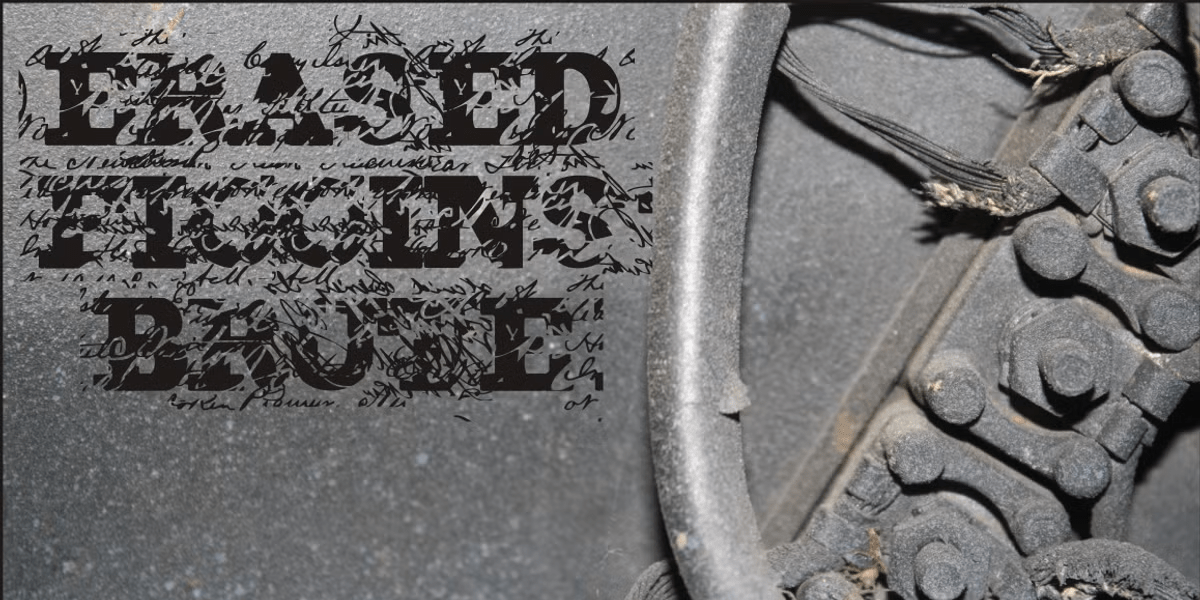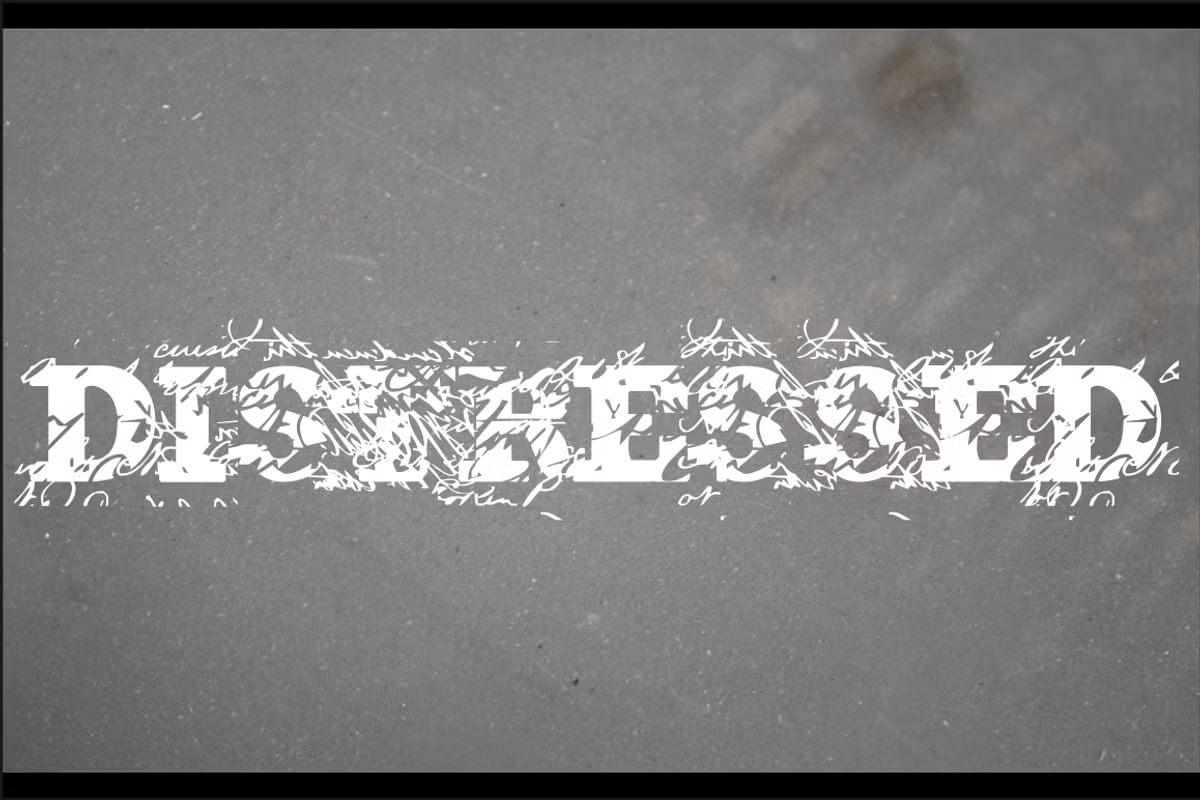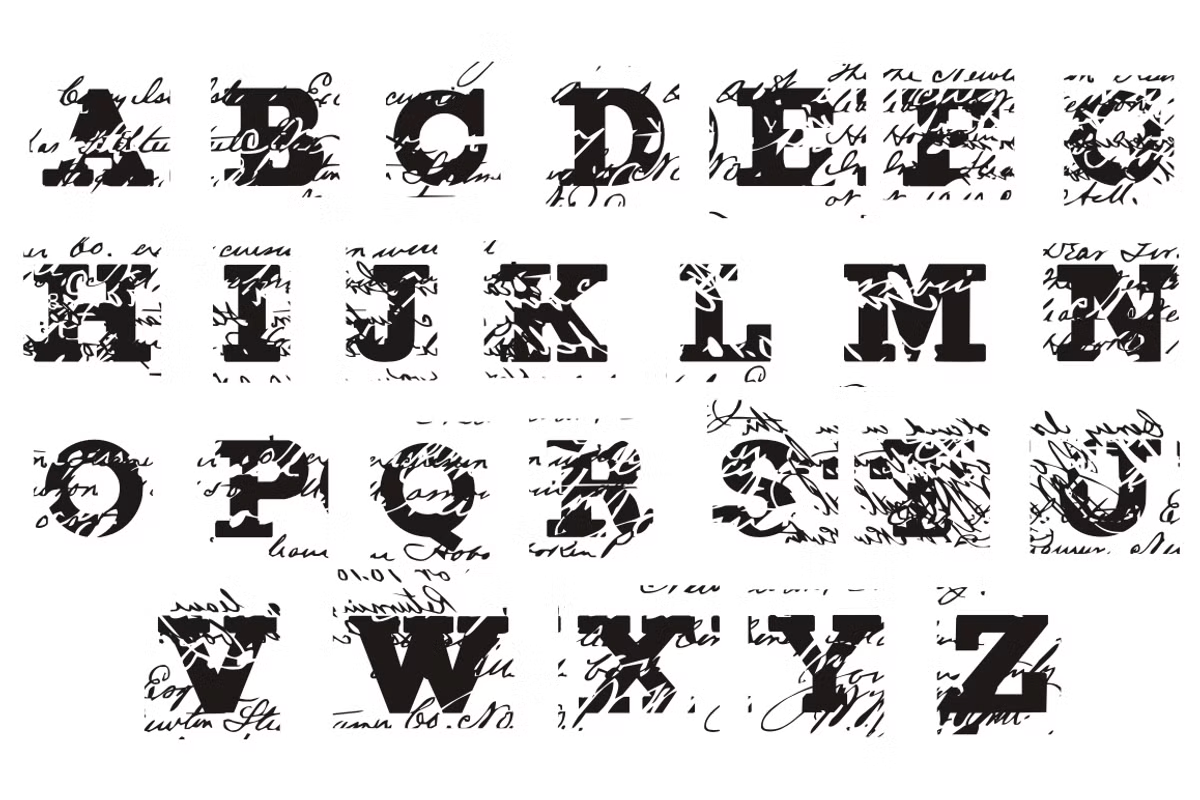
Erased Figgins Brute
Font Family by Intellecta Design
Erased Figgins Brute is a distressed slab serif display font with a bold, worn-in look. Its all-caps construction and roughened texture give it a weathered, tactile presence that feels direct, rugged, and attention-grabbing.
Built as a single-style family from Intellecta Design, it is especially well suited to headings, titling, and other short-format display work where character matters. Use it for posters, packaging, signage, branding, or any project that calls for a serif voice with a more eroded, expressive edge.